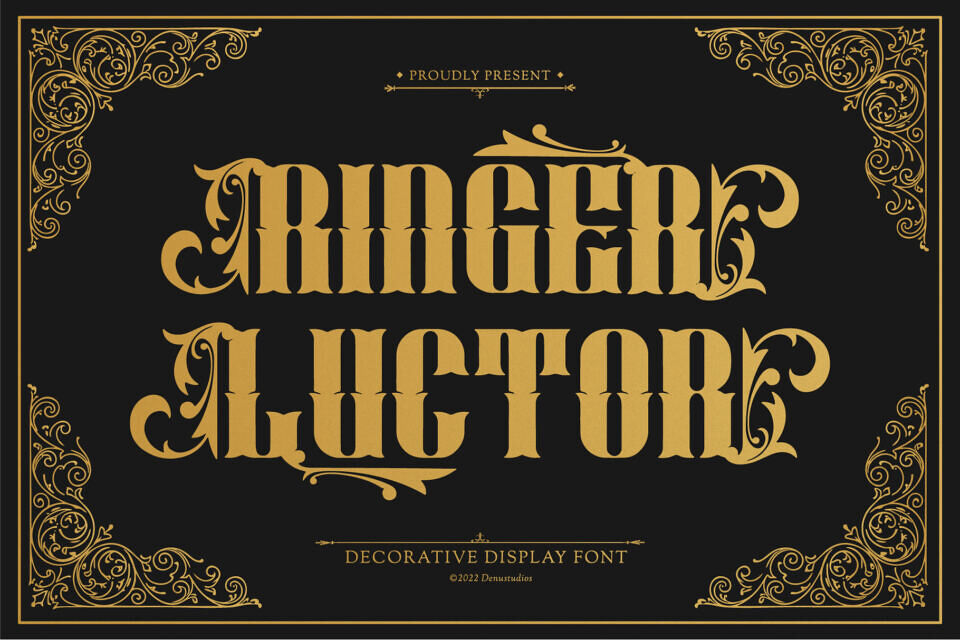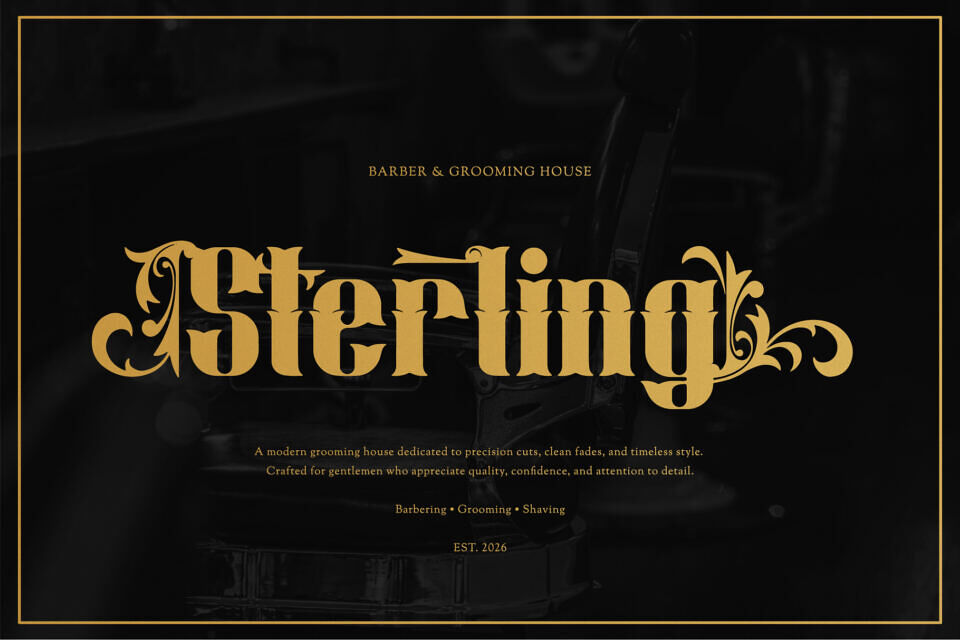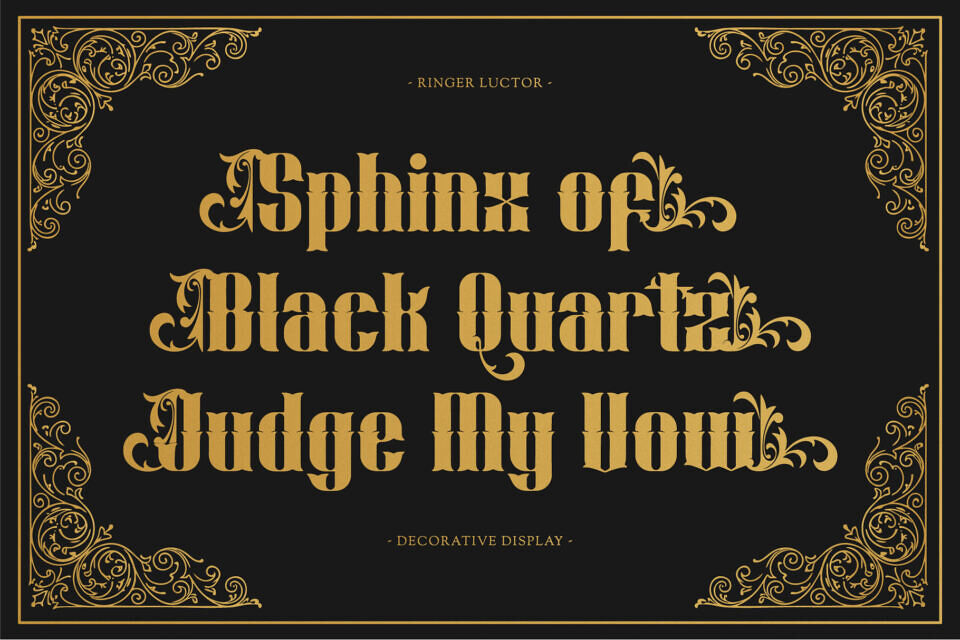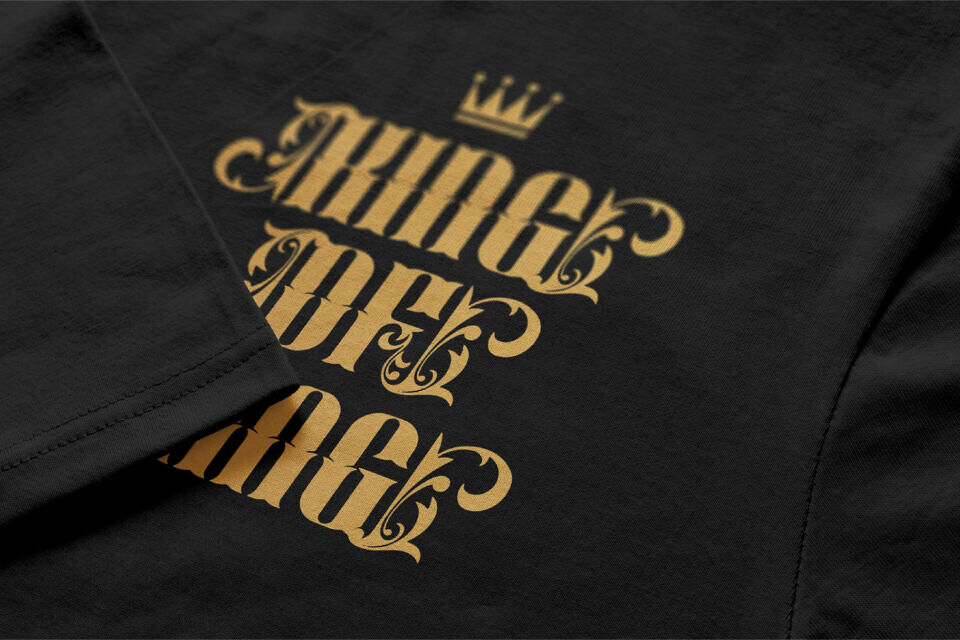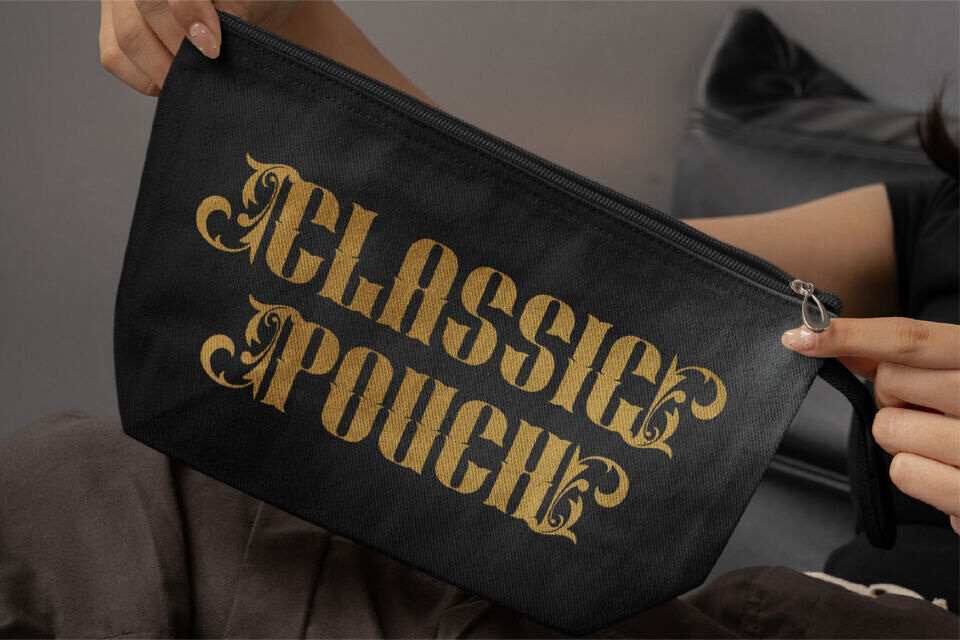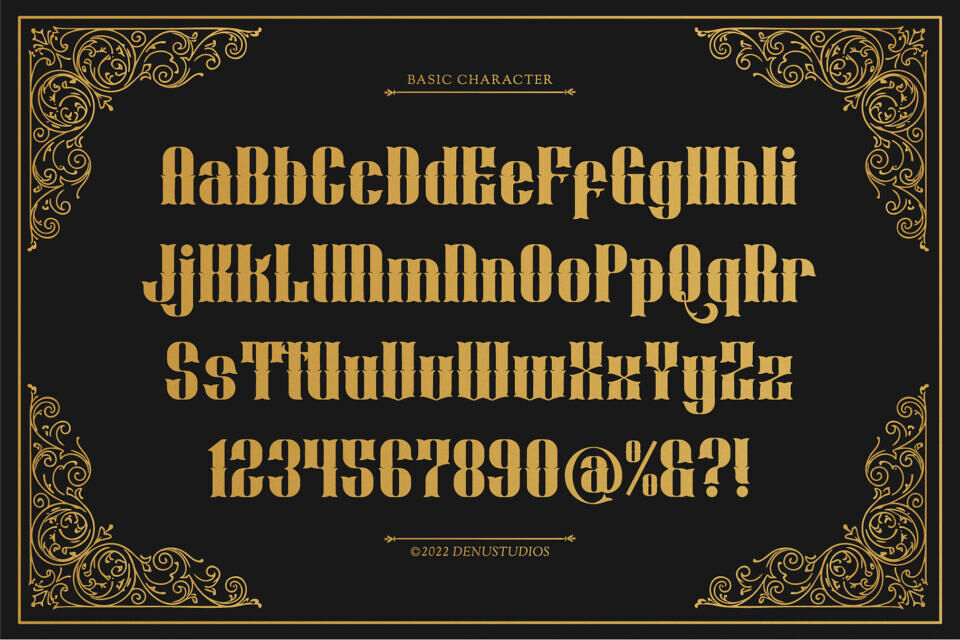
Ringer Luctor Font
Ringer Luctor font features heavy, stylized block letterforms uniquely characterized by their dramatic mid-stem spurs, serrated structural flourishes, and grand, calligraphic terminal wings that bridge the gap between traditional 19th-century salon insignias and contemporary dark-fantasy packaging.
With its dense layout footprint and imposing theatrical attitude, Ringer Luctor is the premier choice for independent craft brewery labels, luxury tattoo parlor branding, vintage apothecary packaging, historical gaming interfaces, and high-impact “regal-and-rebellious” social media titles.